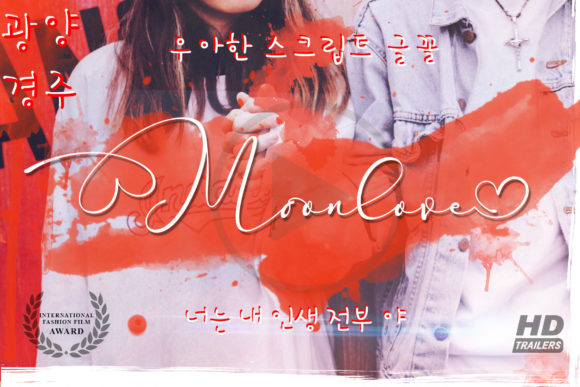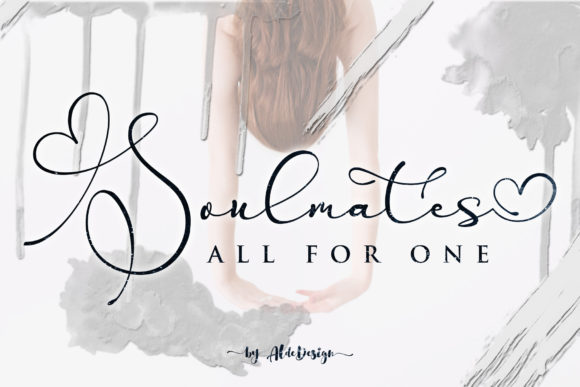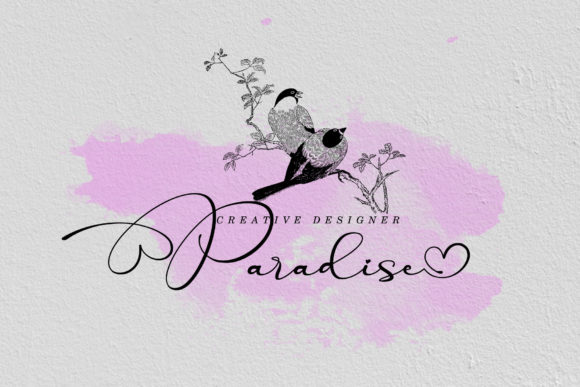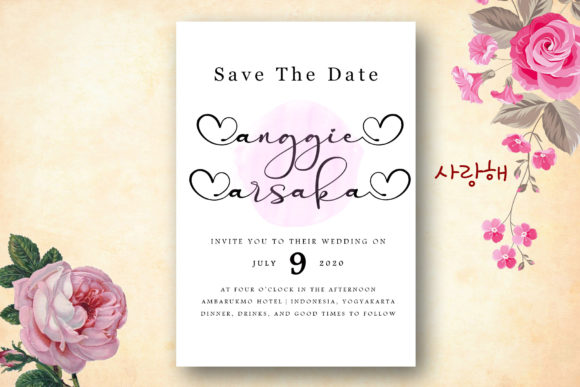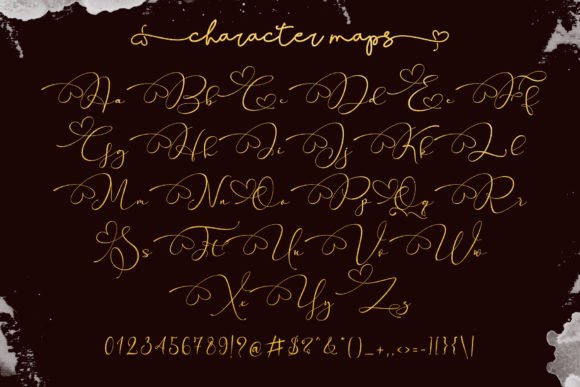
HomeScript FontsParallove Font Script Fonts Parallove Font FacebookXPinterestWhatsApp Parallove Font Poster 2 Parallove Font Poster 3 Parallove Font Poster 4 Parallove Font Poster 5 About Parallove Font Parallove is a gorgeous and lovely script font that will elevate any creative project with its modern charm. DOWNLOAD ON CREATIVE FABRICAThis font is sold and delivered by Creative Fabrica. Font Canyon may earn a commission if you buy through this link. People also explored Oscan Expanded Font California Roll Font Bloody Murder BB Cloudheads Font Montterule Font The Scientist Font Birdy Home Font Gothic Bold Font Signed Font 327 0 TagsParallove Font Previous articleMowllnew FontNext articleEvallia Font LEAVE A REPLY Cancel reply Comment: Please enter your comment! Name:* Please enter your name here Email:* You have entered an incorrect email address! Please enter your email address here Website: Save my name, email, and website in this browser for the next time I comment. Personal Use Free Good Timing – Bold Personal Use Free Read more about this font Hello Holiday Personal Use Free Read more about this font Rhetorical Personal Use Free Read more about this font Mustica Personal Use Free Read more about this font BLOG Top 10 Handwritten Fonts That Elevate Your Designs Top 10 Handwritten Fonts That Will Elevate Your Designs Handwritten fonts bring a warm, personal touch to every creative project. Whether you're designing logos, invitations,... Exploring Font Trends 5 Fonts That Will Dominate Design Trends in 2026 Best Fonts for YouTube Videos: Make Your Thumbnails Stand Out